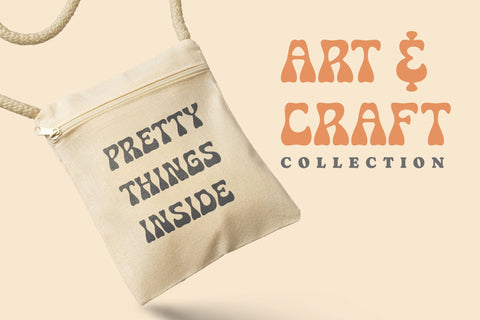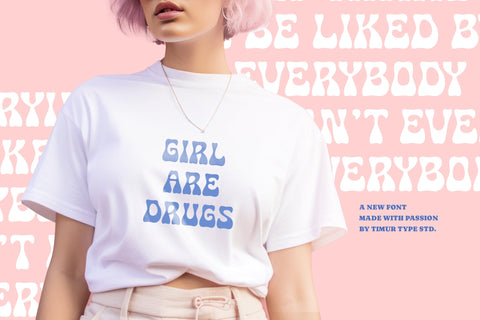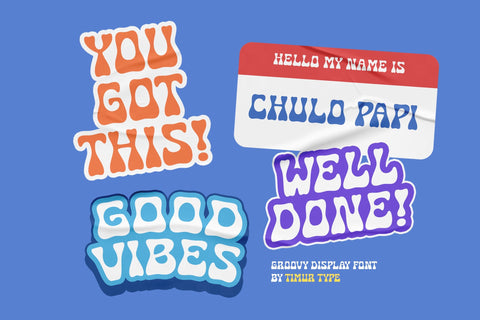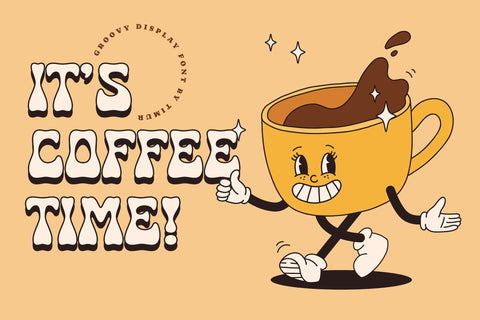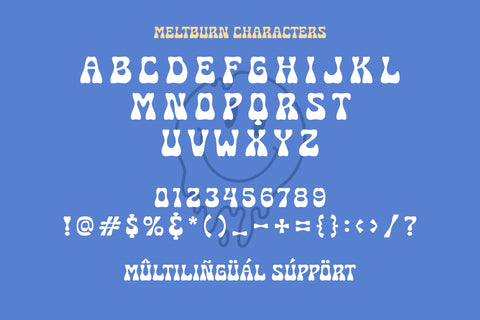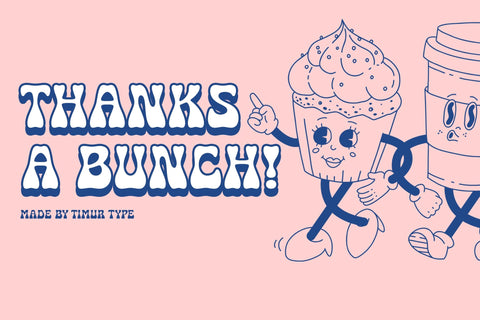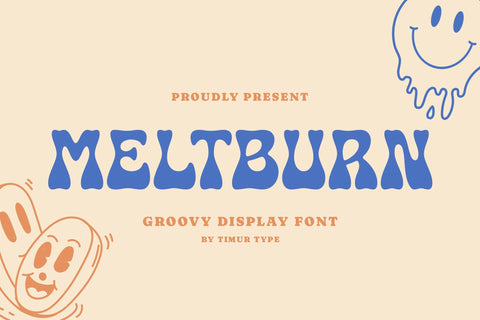
Meltburn - Handwritten Groovy Display Font
Proudly Present, Meltburn
Meltburn A Handwritten Groovy Display Font , which was created with great care and specially created for you š
Meltburn is perfect for product packaging, branding project, megazine, social media, wedding, or just used to express words above the background.